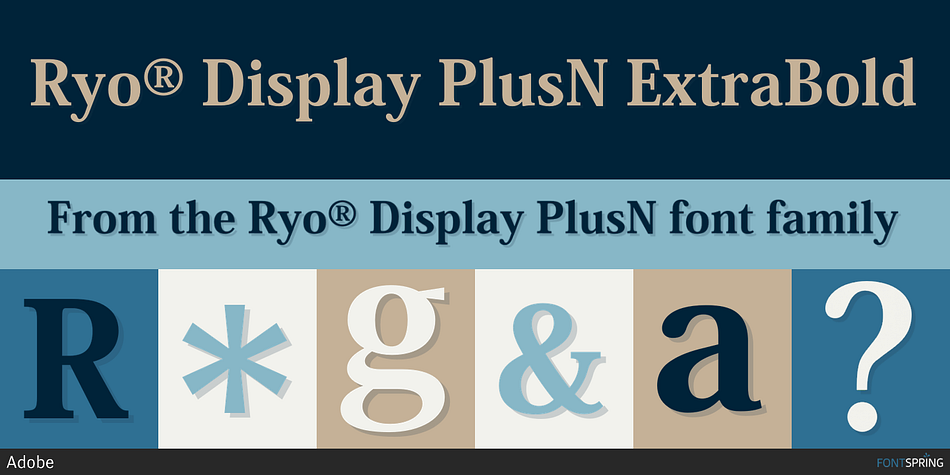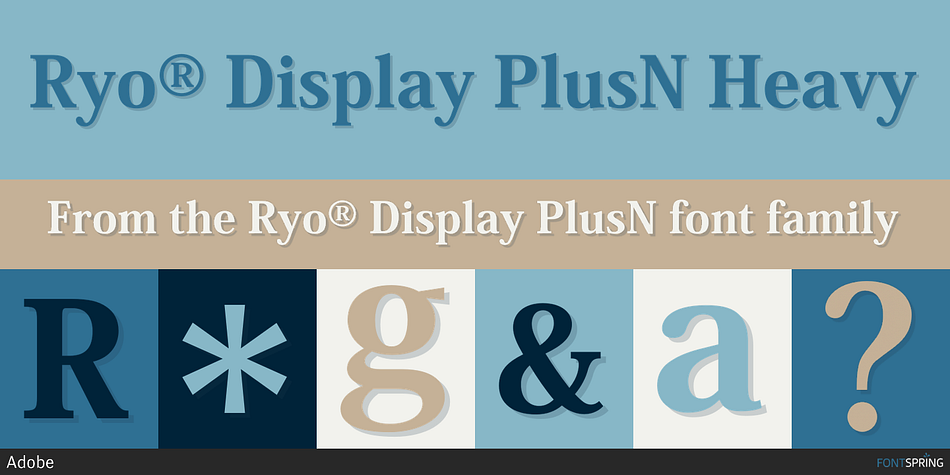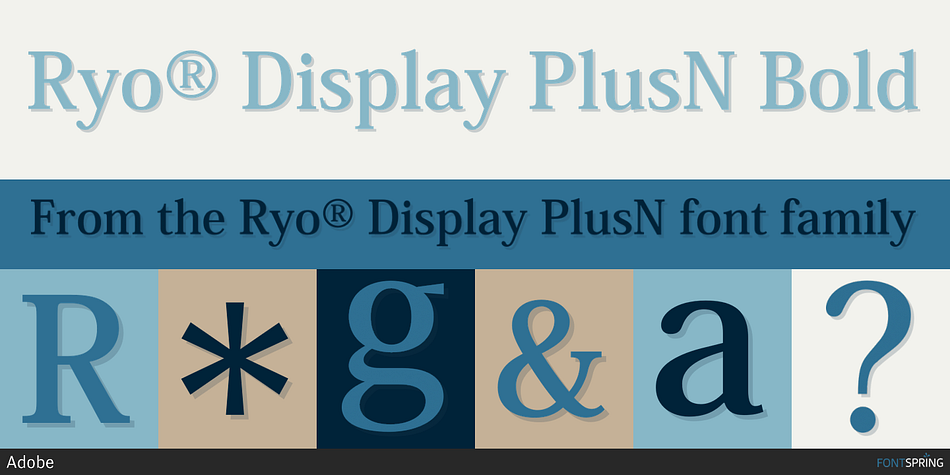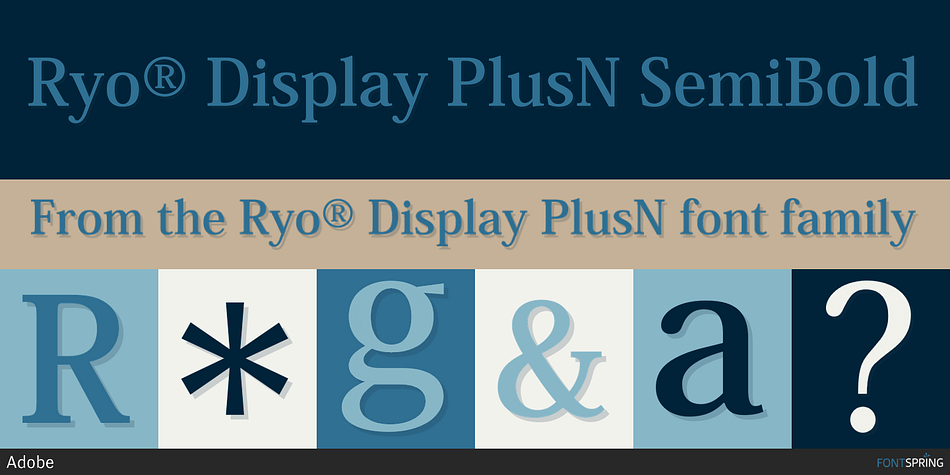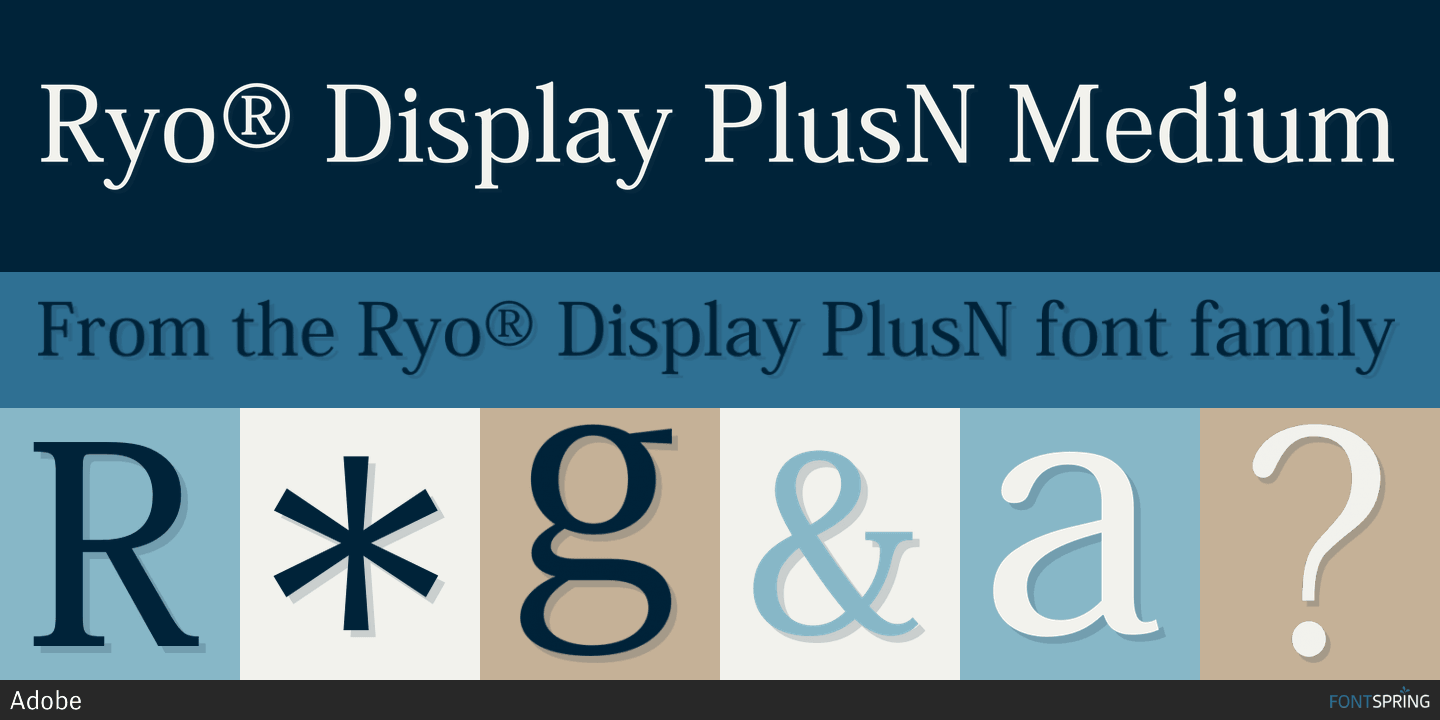
Ryo® Display PlusN is a serif font family. This typeface has five styles and was published by Adobe.
In addition to the kana characters that used to be supported by Ryo, a full-set of Adobe-Japan1-3 characters of Kozuka Mincho® was added and Ryo became a Std OpenType font.*1
Ryo Display has been specifically designed for use when setting copy in larger sizes, such as in headlines or posters.
Like the previous version of Ryo Display, Ryo Display PlusN can be used, combined with other full-set Mincho typefaces, but now it’s possible to use it as a stand-alone Japanese font.
The family of Ryo Display PlusN has the five weights of Medium, SemiBold, Bold, ExtraBold, and Heavy. Ryo Display PlusN is an OpenType Std font supporting the Adobe-Japan1-3 Character Collection. We recommend you to use the Composite Font tool of Adobe InDesign® Japanese edition in order to use this typeface combined with other Japanese typefaces.
—1 In addition to the Adobe-Japan1-3 characters, Ryo Display PlusN has the Printing Standard Glyphs defined by the National Language Council.